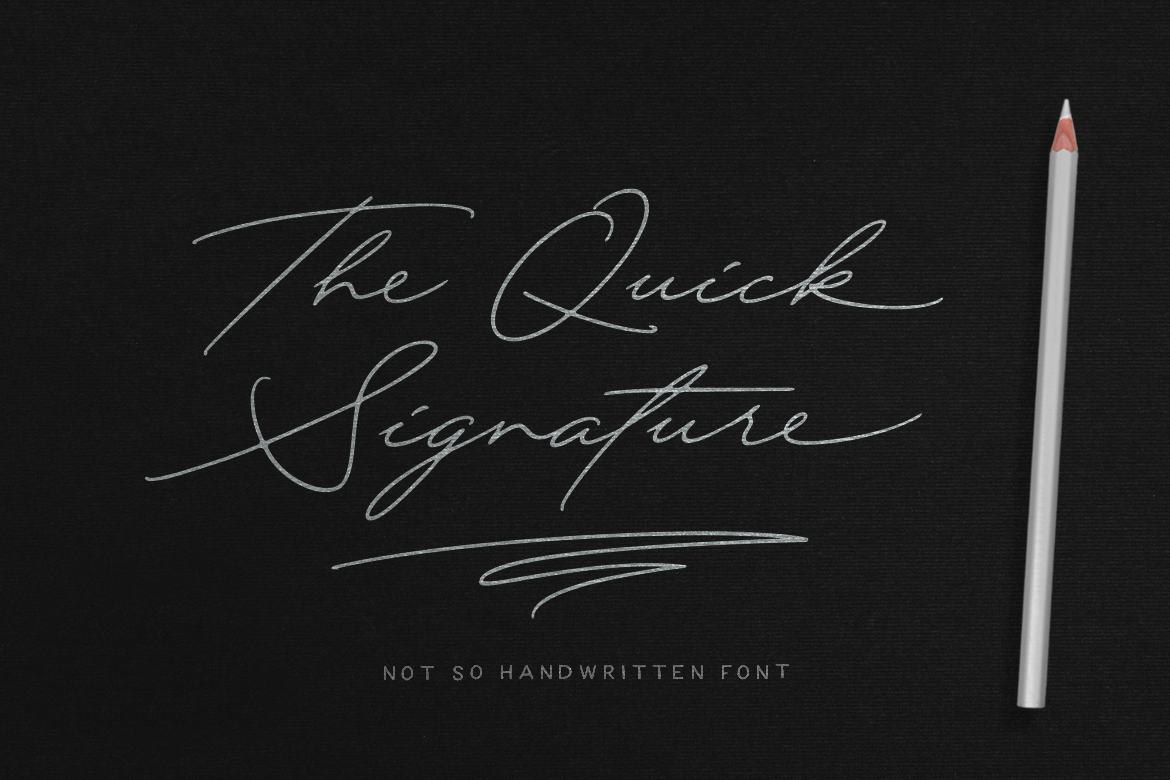
Quick Signature Pro
Total 518 glyphs packed inside this font.
OpenType Features:
• Stylistic Alternates / SALT
• Contextual Alternates / CALT
• Initial Forms / INIT
• Terminal Forms / FINA
• Ligatures / LIGA
• Stylistic Set / SS01-09
• Swash / SWSH
This font will looks more gorgeous when you pairing with a Geometric Sans or a Serif Font.
On my artwork, i use Raleway for Sans, and Traditional Arabic for Serif.
For best typing experience, turn on "Contextual Alternates" on your program.
This feature will make every ending letters are changes automatically when you type.